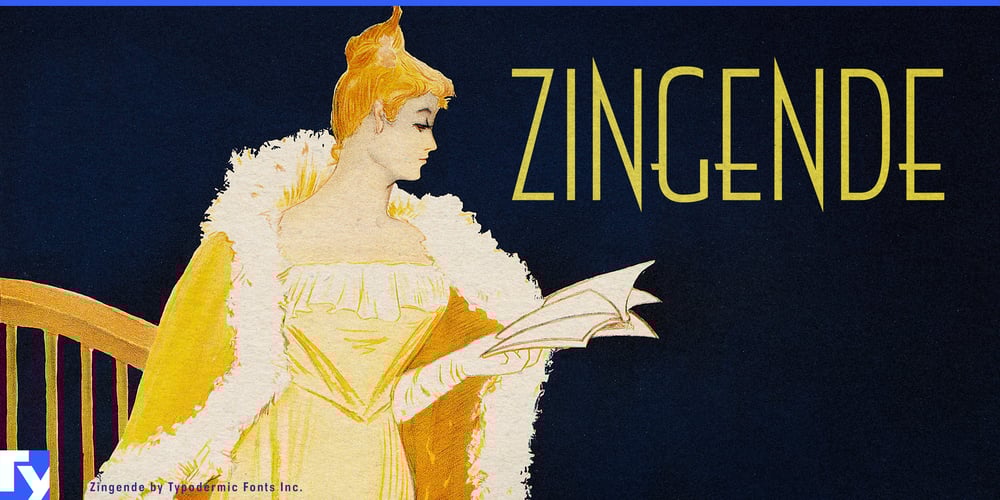
Zingende
Zingende font
Zingende Font Family was designed by Ray Larabie and published by Typodermic. Zingende contains 14 styles and family package options. Ladies and gents, put on your dancing shoes and prepare to cut a rug with Zingende, the typeface that’s hotter than a brass section in full blast! This is a typographic tribute to the era when the joint was always jumping and the music never stopped.Zingende struts onto the page with all the confidence of a lead trumpeter taking center stage. Its razor-sharp points and elegant waistline aren’t just design choices—they’re a visual rhythm, baby, syncopating your message with the precision of a seasoned jazz drummer. Each letter is a solo act, but together, they create a harmony that’s sweeter than a Benny Goodman clarinet lick. But don’t think Zingende is a one-trick pony. Oh no, this cat’s got range! With six different weights, you can fine-tune your typographic arrangement like a bandleader adjusting the mix. Need to shout it from the rooftops? Crank it up to bold. Want to whisper sweet nothings? Take it down to light. And for those times when you need to really blow the doors off the joint, Zingende’s solid, counterless design is like a typographic big band in full swing—impossible to ignore and guaranteed to get toes tapping.Zingende isn’t just fluent in the language of jazz—it’s a regular polyglot, speaking to audiences from the smoky clubs of Paris to the dancehalls of Havana. With support for a swinging selection of Latin-based European writing systems, your message will be the talk of the town from Stockholm to Seville.So whether you’re designing a poster for the hottest swing revival this side of the Cotton Club, branding a speakeasy that’s so exclusive even the feds don’t know about it, or just want to add some Art Deco pizzazz to your next presentation, Zingende is your ticket to typographic stardom.